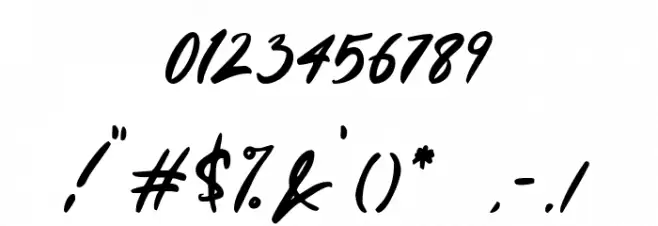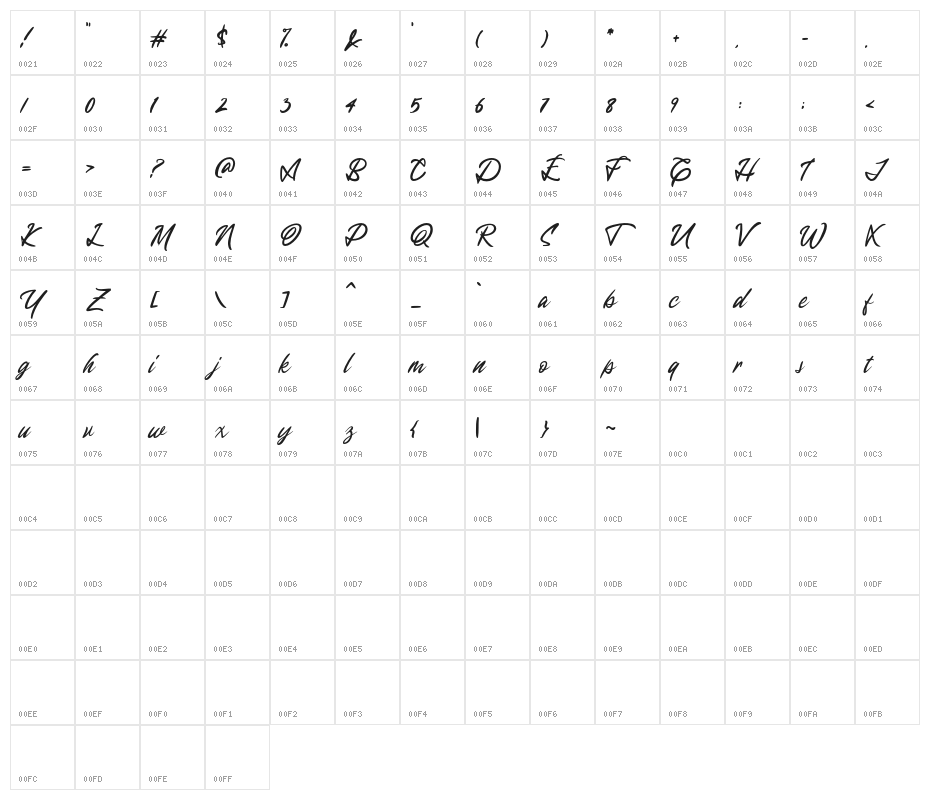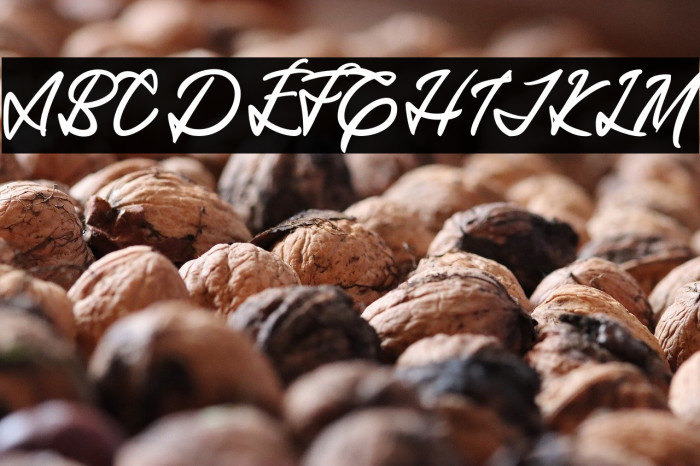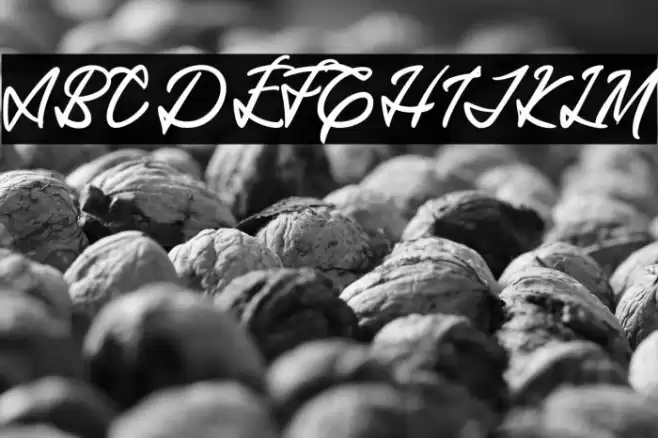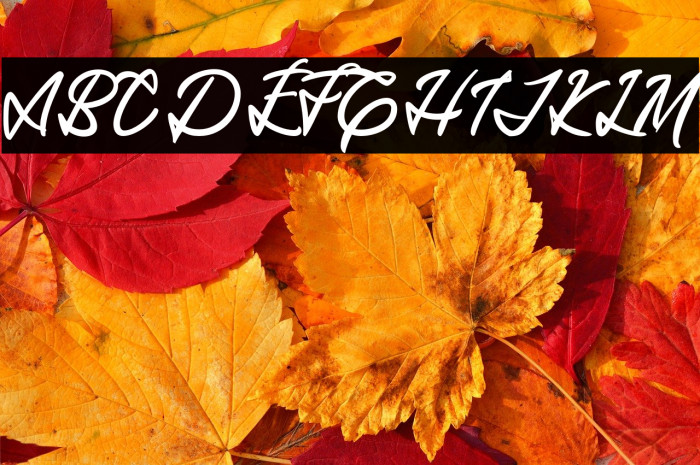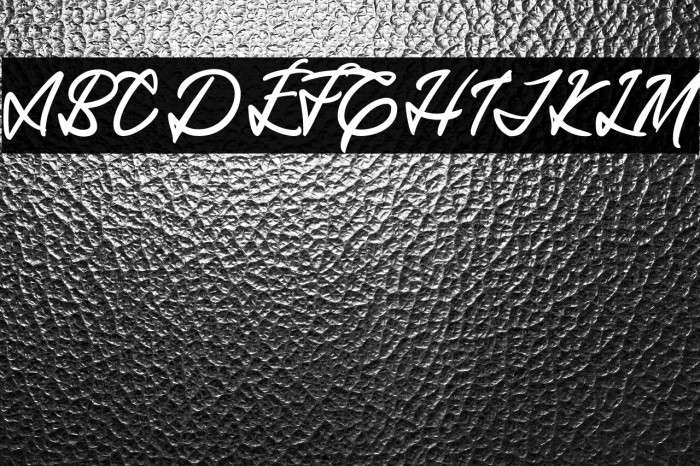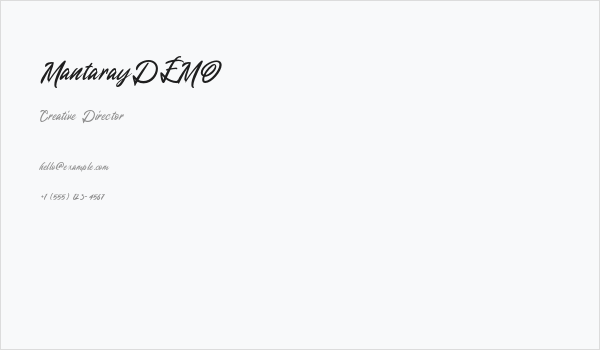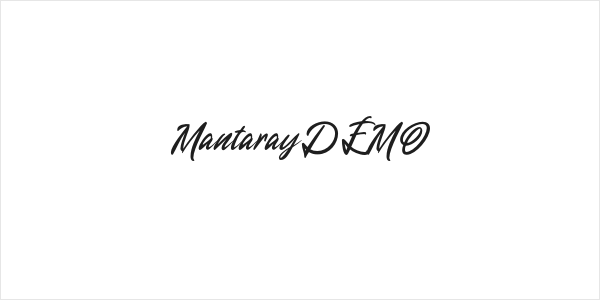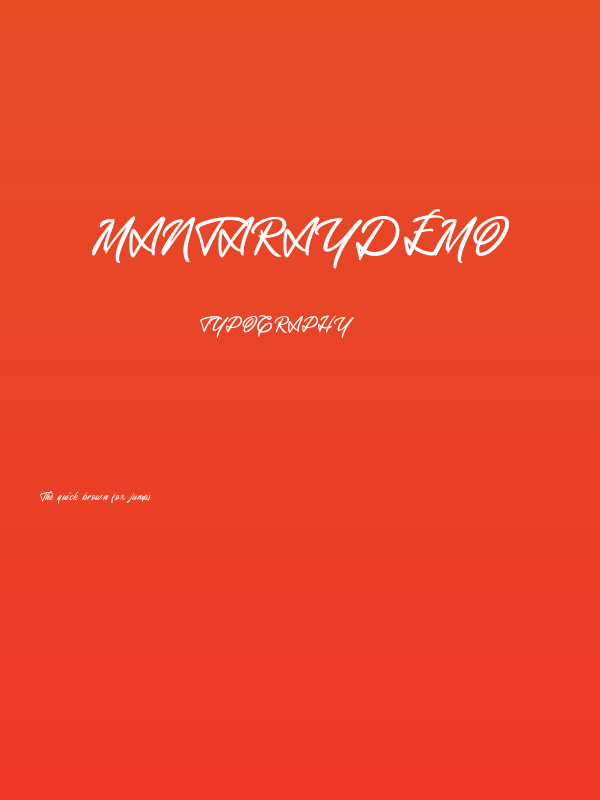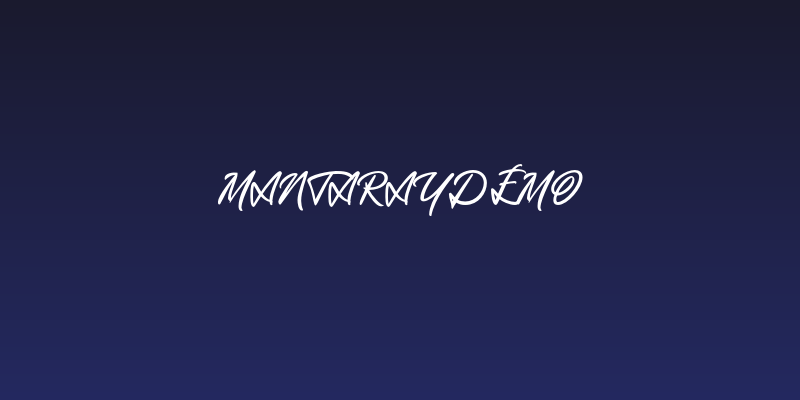
MantarayDEMO Font
MantarayDEMO Description
This font exudes a dynamic and fluid style, characterized by its cursive, handwritten appearance. The letters are connected, creating a seamless flow that mimics natural handwriting. The uppercase letters are bold and slightly slanted, giving a sense of movement and elegance. The lowercase letters maintain the same fluidity, with smooth curves and consistent stroke widths. Numbers and special characters follow the same stylistic cues, ensuring uniformity across all elements. This font is ideal for projects that require a personal touch, such as invitations, greeting cards, or branding materials that aim to convey a sense of sophistication and creativity.
Use CaseLogos, Invitations, Greeting Cards
Proposed ProjectsIdeal for wedding invitations, personal branding, greeting cards, and creative logos.